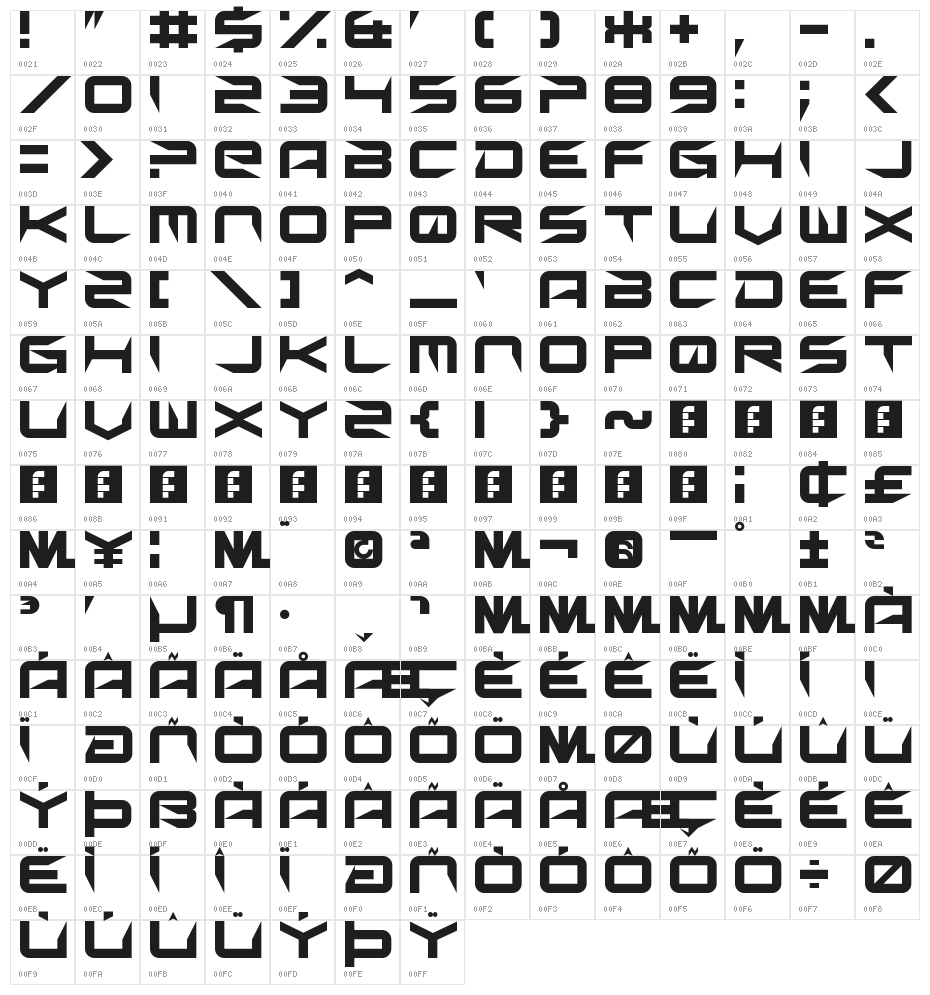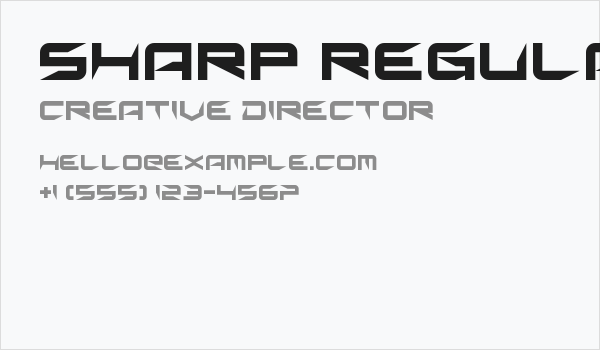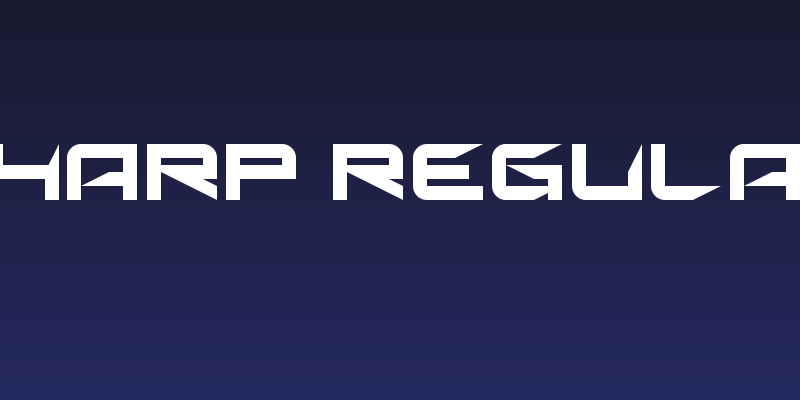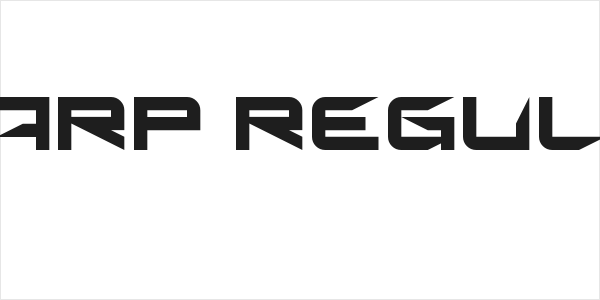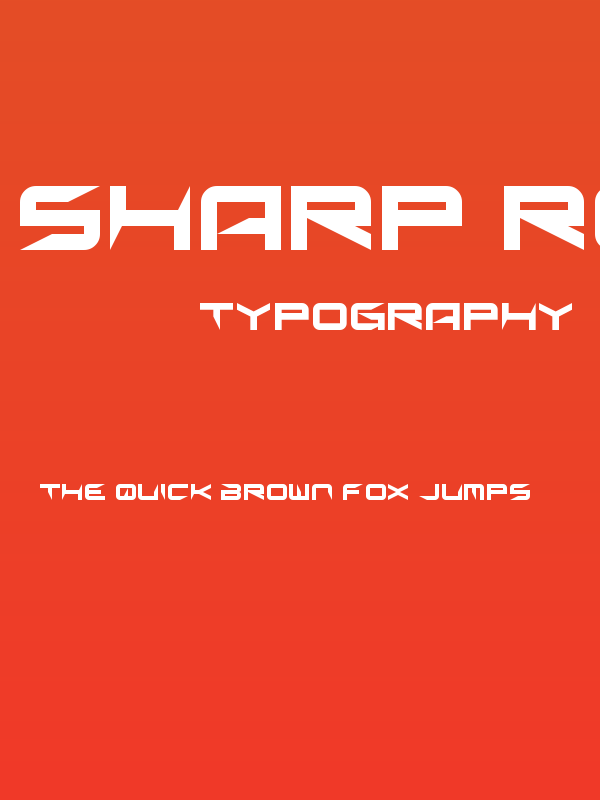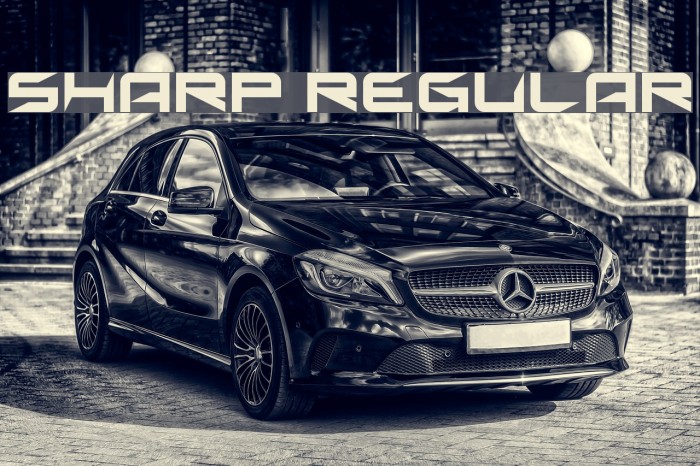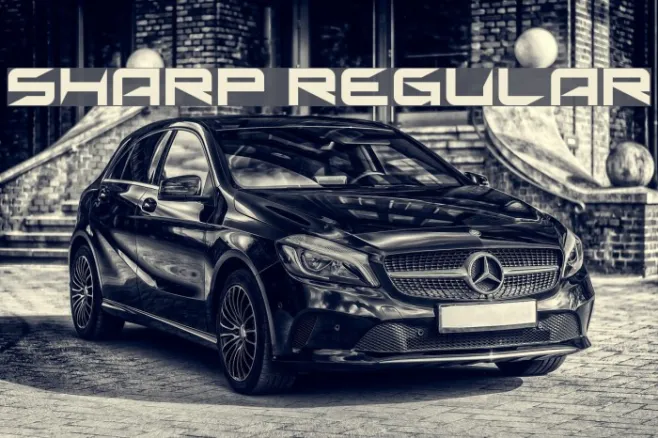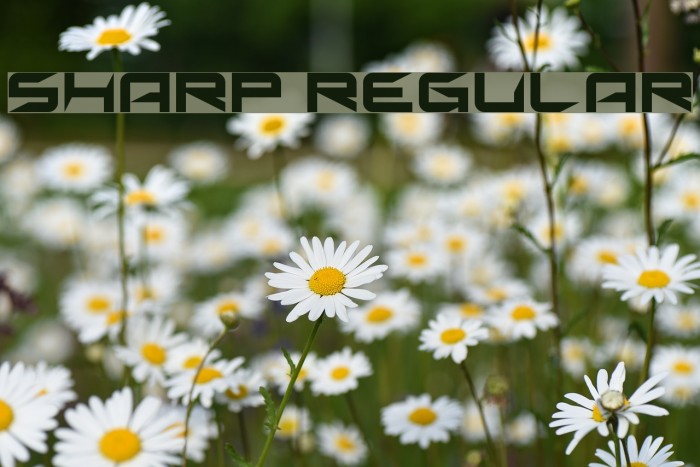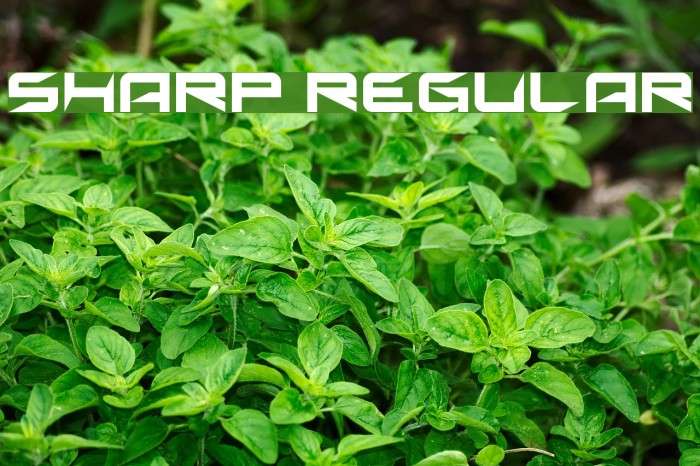
Sharp Regular Font
Sharp Regular Description
This font features a futuristic and angular design, characterized by sharp edges and geometric shapes. The uppercase letters are bold and striking, with a consistent angular motif that gives them a dynamic and modern appearance. The lowercase letters maintain the same angular style, ensuring uniformity across the typeface. Numbers and special characters are designed with the same sharpness, making them visually cohesive with the alphabet. The overall style is highly decorative, making it suitable for projects that require a bold and modern aesthetic.
| Proposed Projects | Ideal for sci-fi themed designs, technology branding, video game titles, and modern posters. |